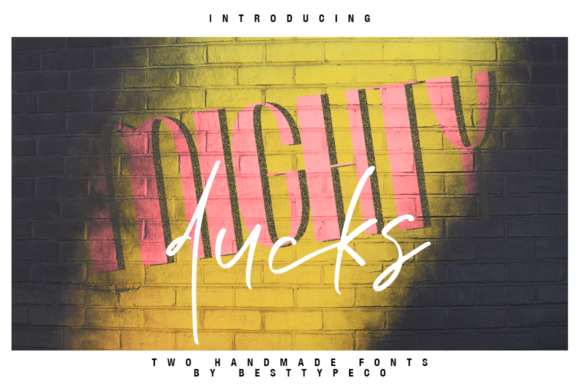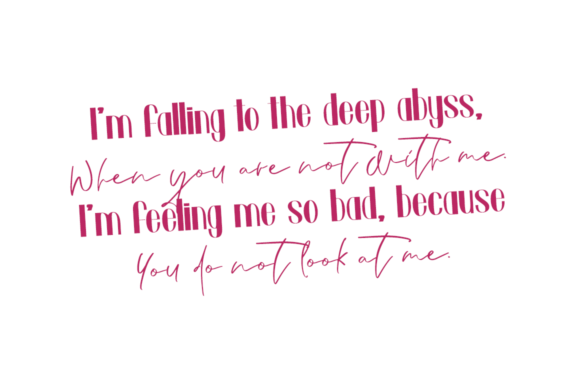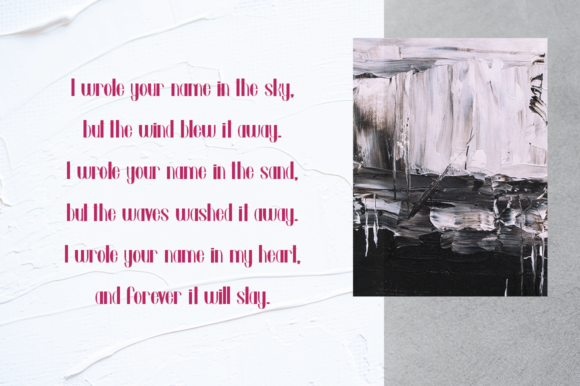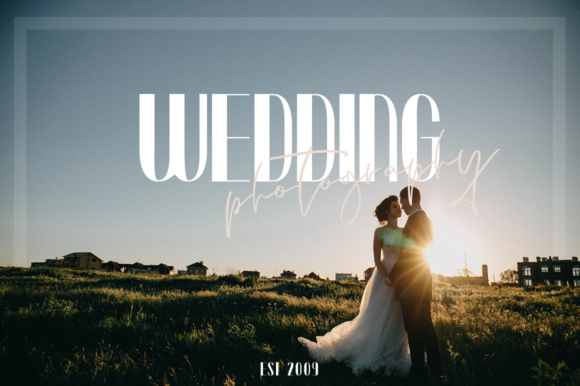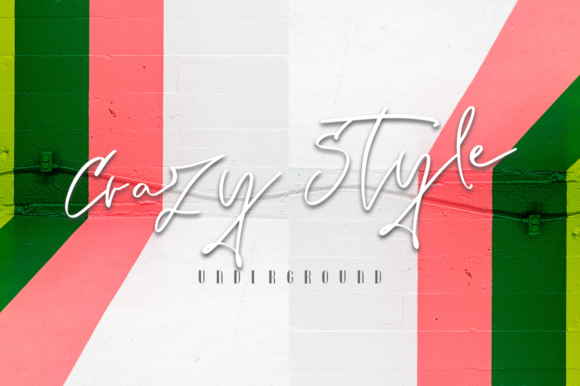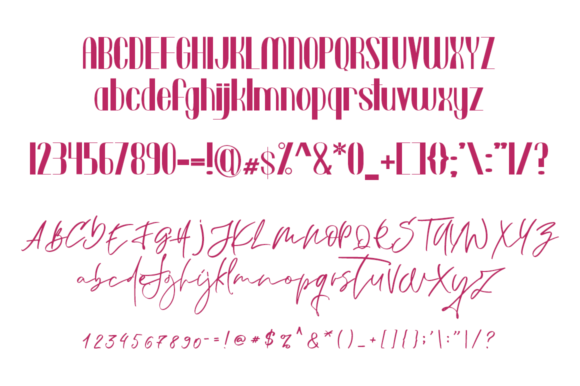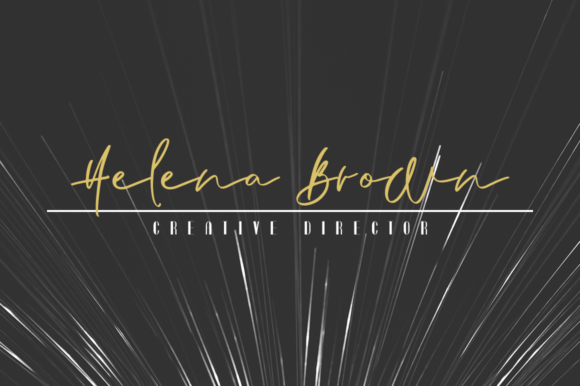
Mighty Ducks Font
About Mighty Ducks Font
Mighty Ducks duo is a match made in heaven. Combining these two fonts on your next design will give it a modern and elegant feel.